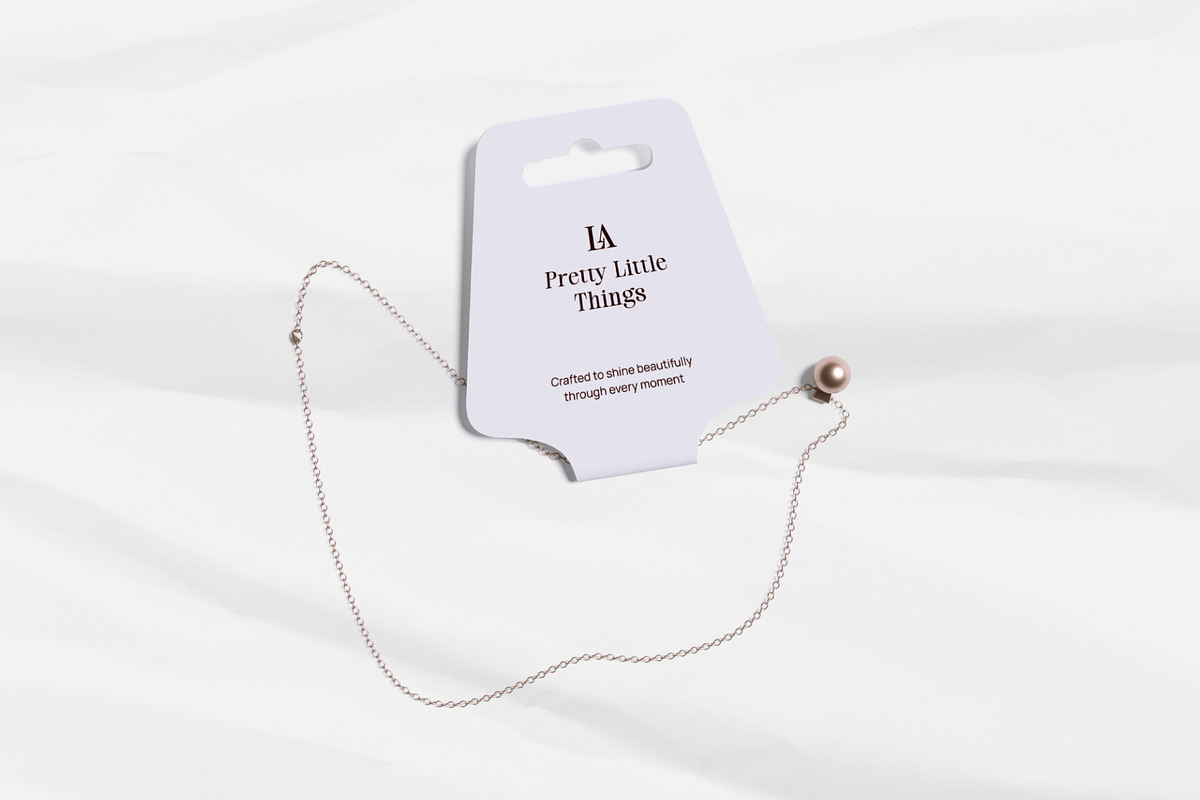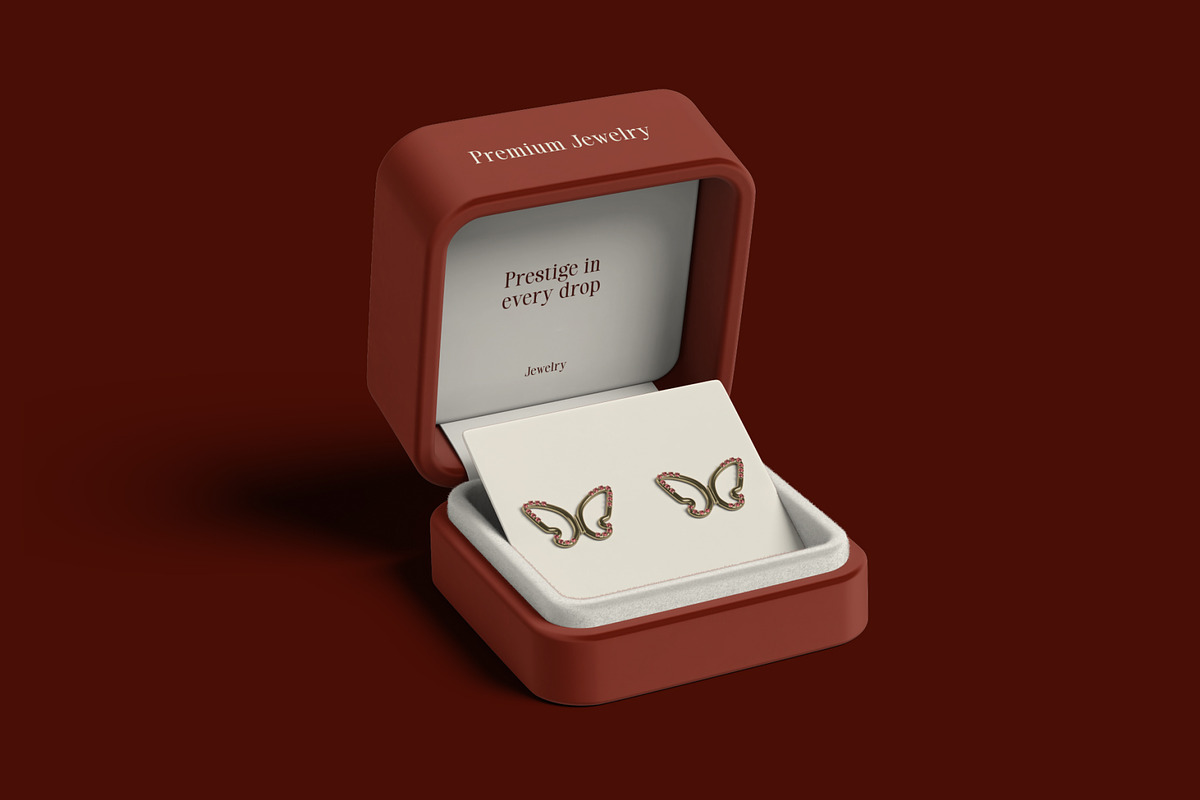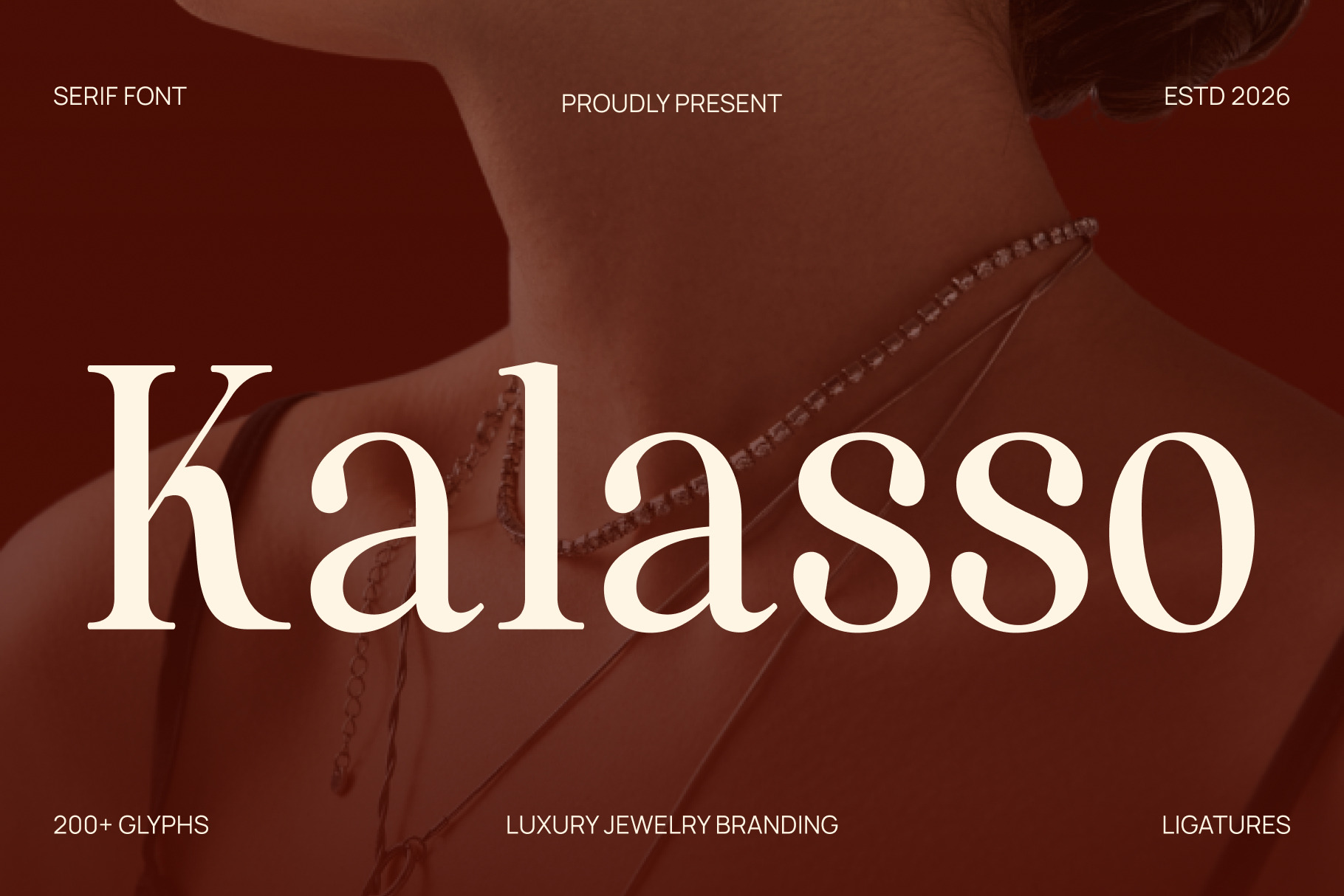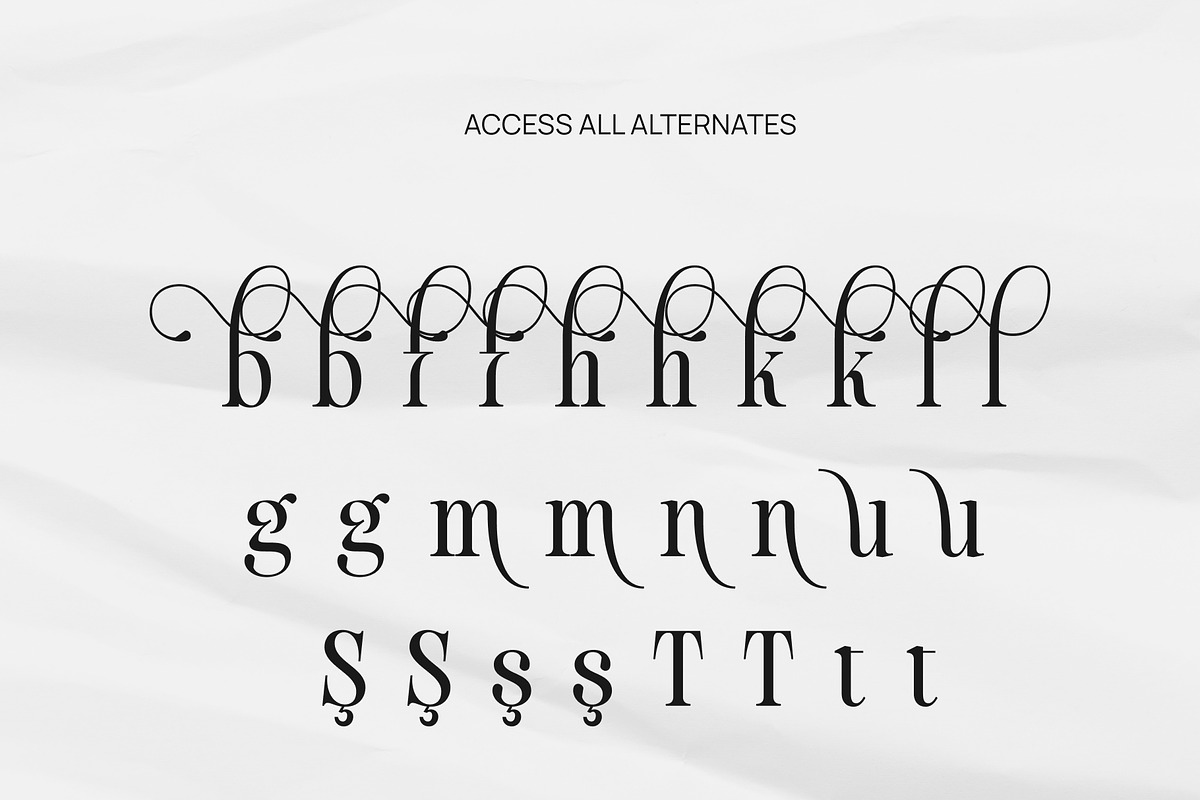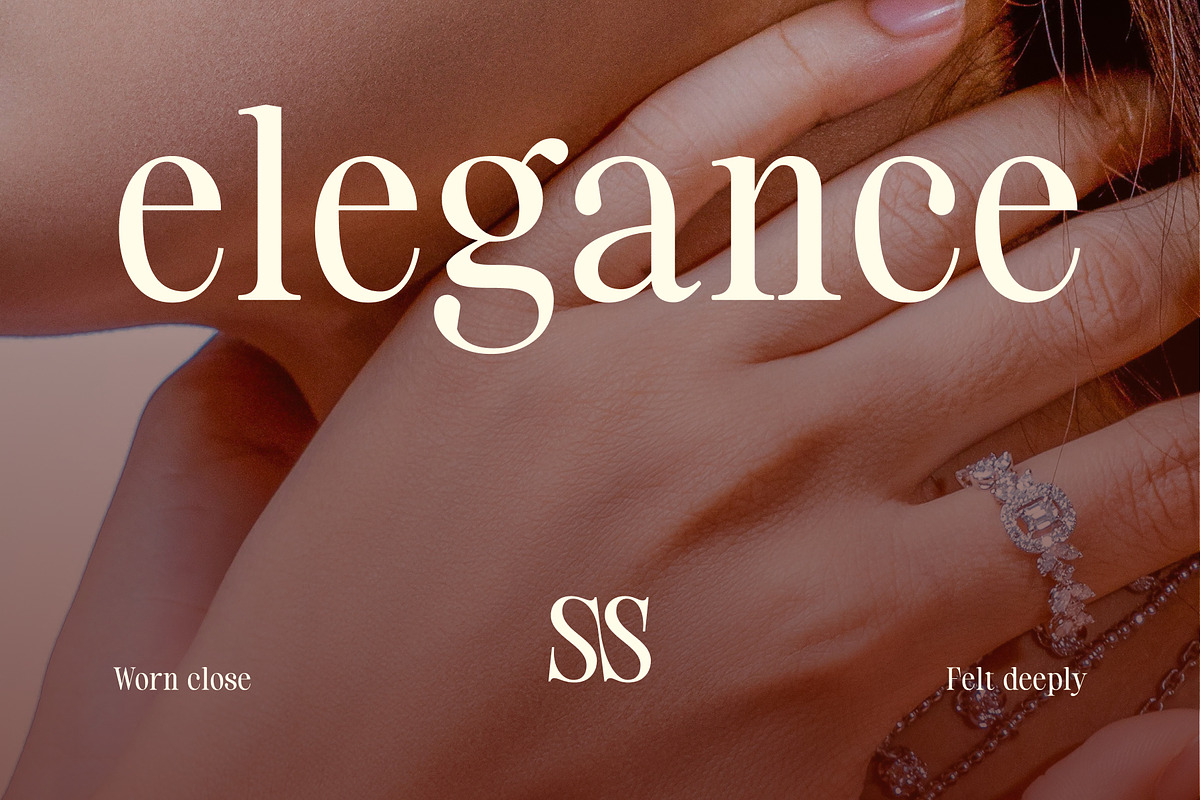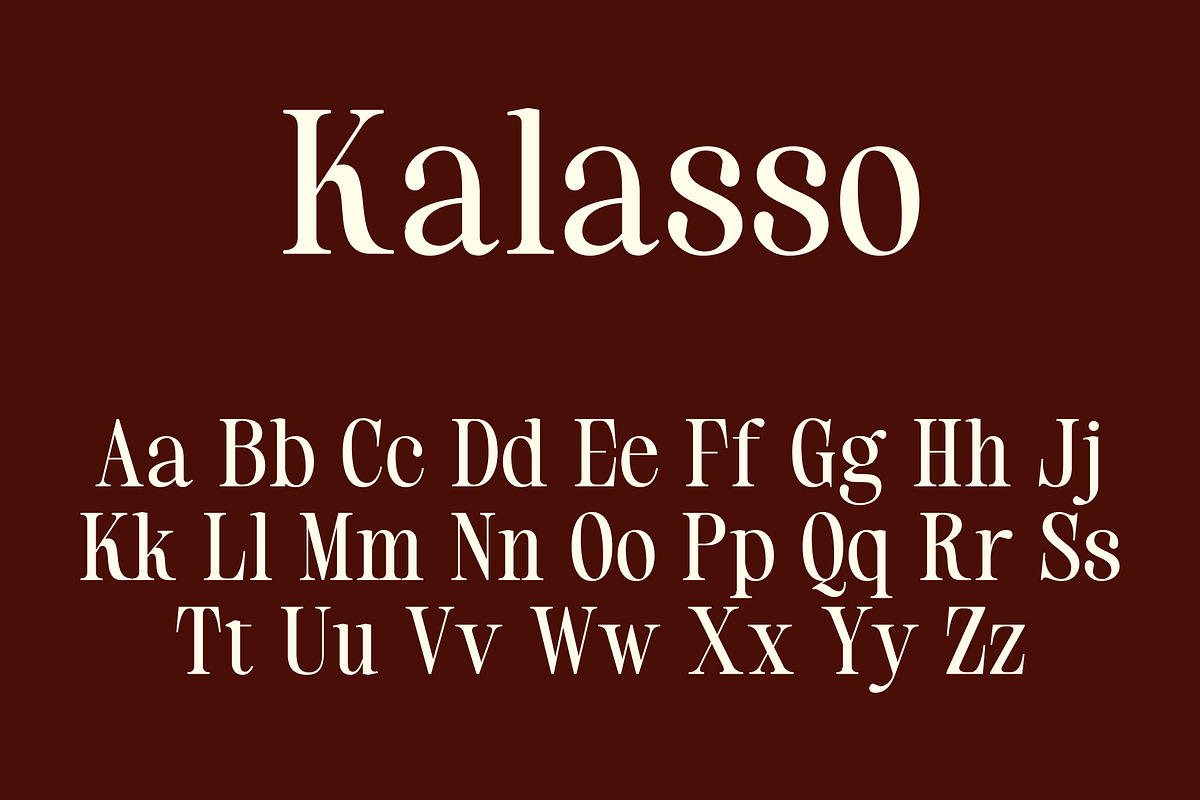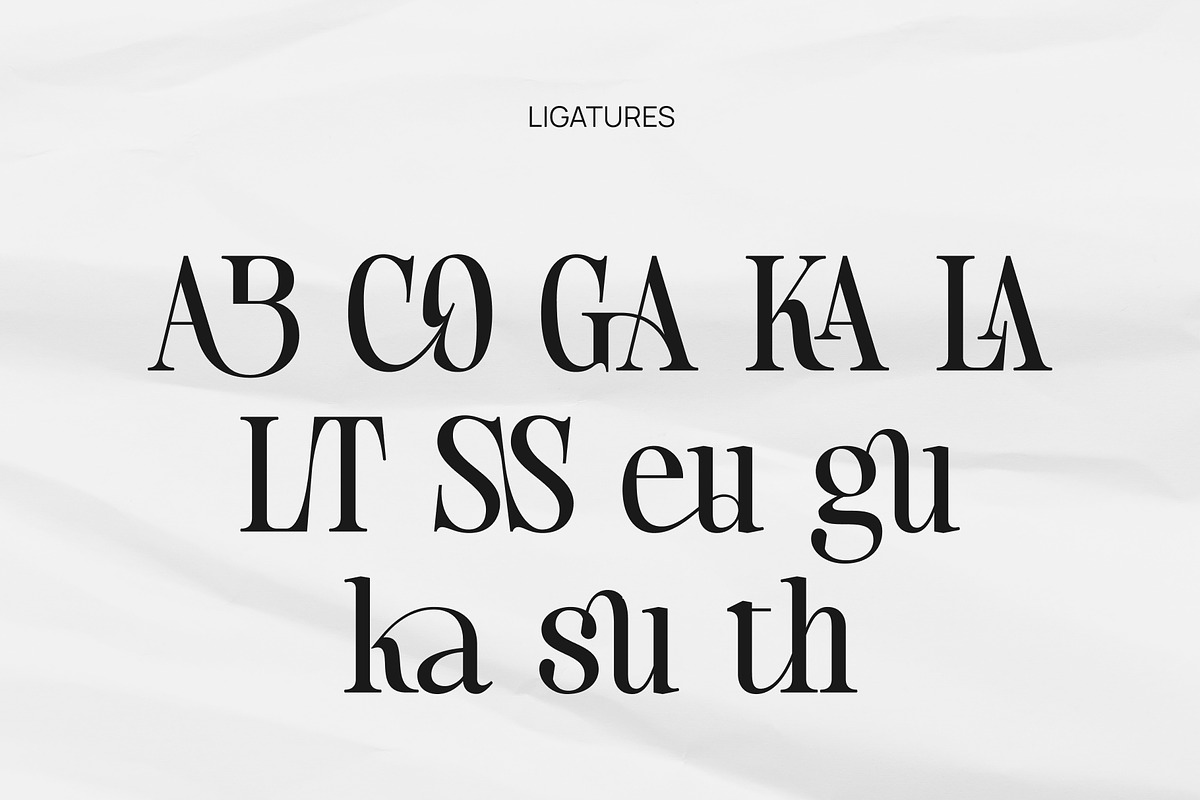
Luxury Jewelry – Kallaso Font
Luxury Jewelry – Kallaso Font is an elegant display typeface designed to capture the essence of luxury, sophistication, and timeless beauty. With its graceful letterforms, refined curves, and stylish details, Kallaso brings a premium touch to every design. Its distinctive character makes it perfect for creating memorable visuals that reflect exclusivity and high-end craftsmanship.
2 Style: Regular, Oblique
Full Character Set: Uppercase, lowercase, numbers, symbols, and punctuation
From jewelry branding to luxury, Kallaso delivers a sophisticated presence that stands out with elegance. Its refined style is ideal for jewelry branding, logos, boutique branding, fashion campaigns, wedding stationery, social media content, and premium editorial designs that demand a touch of class.